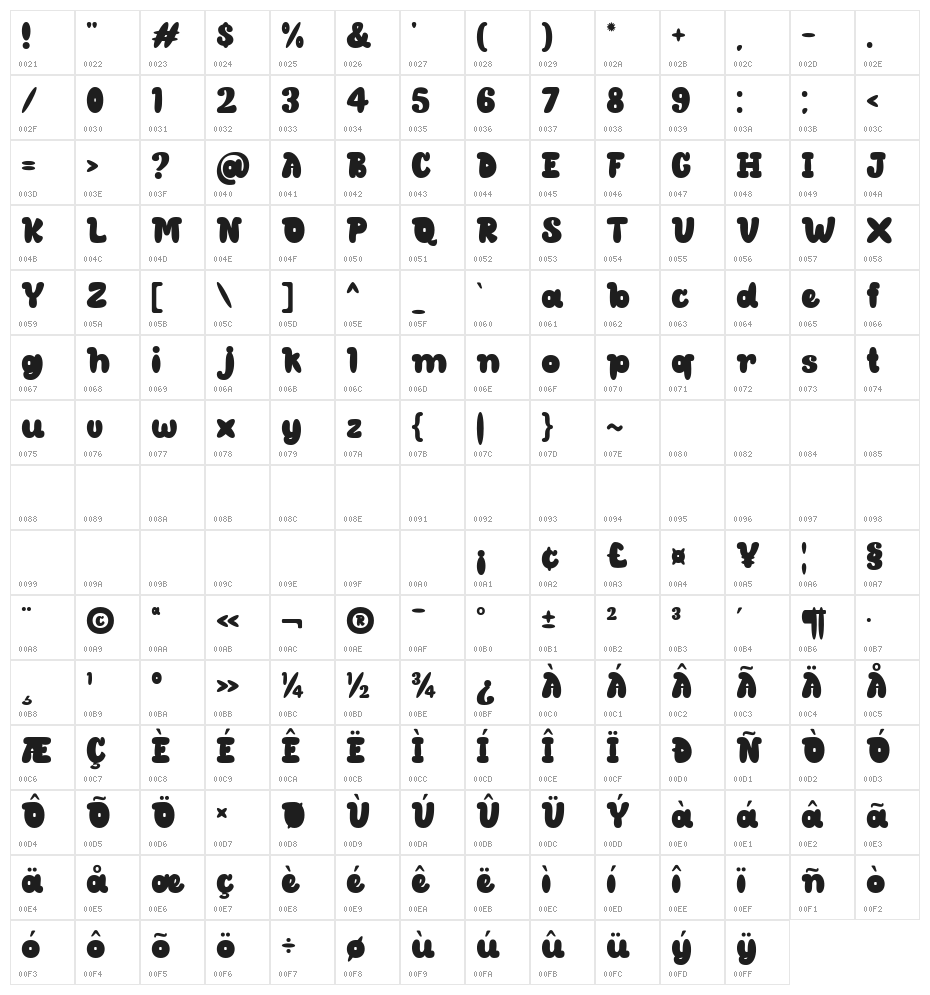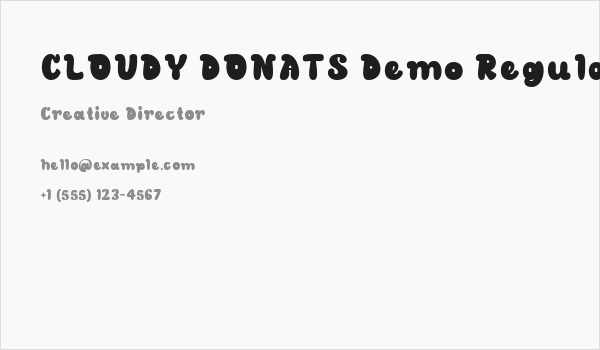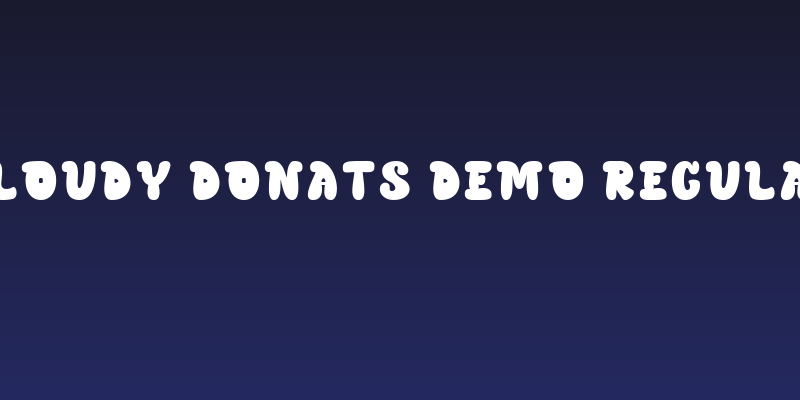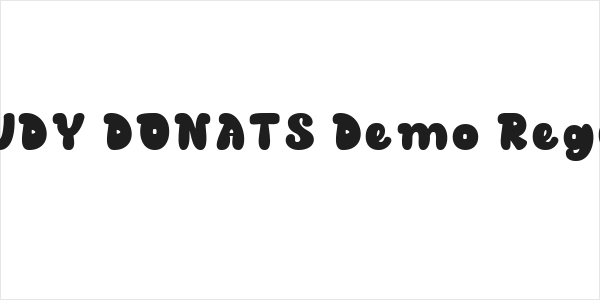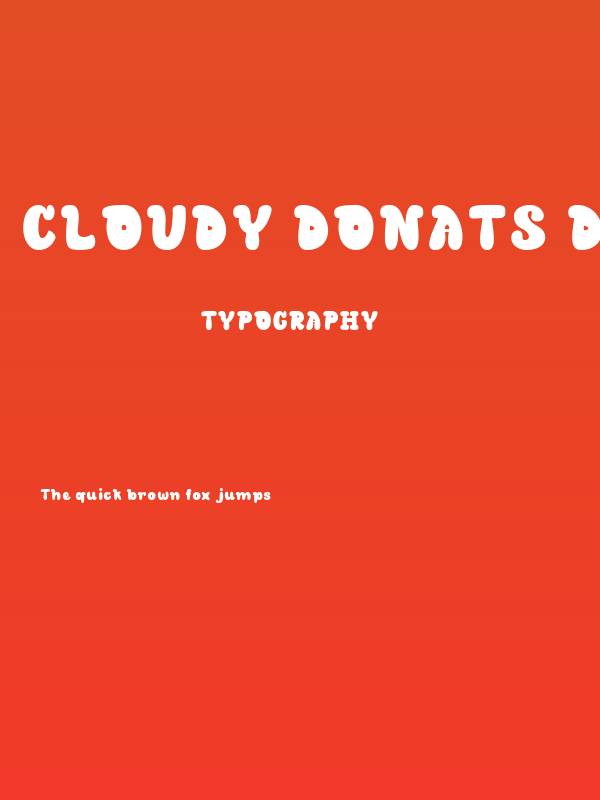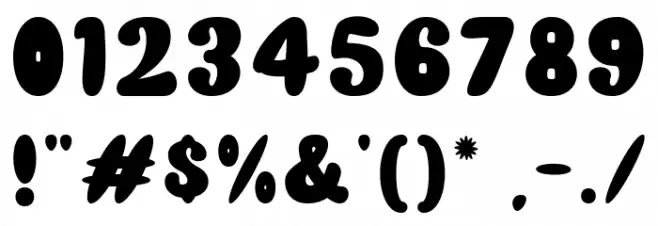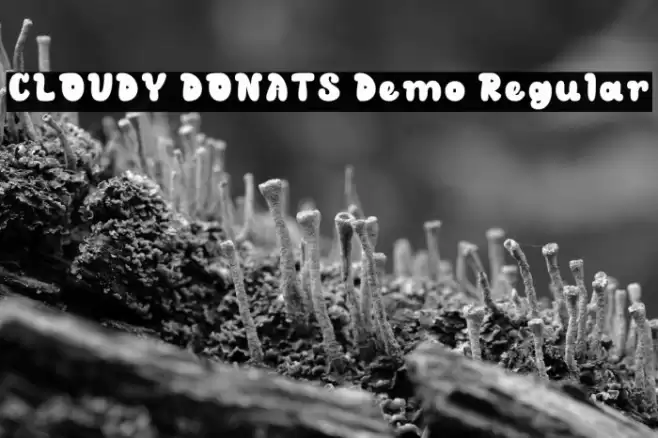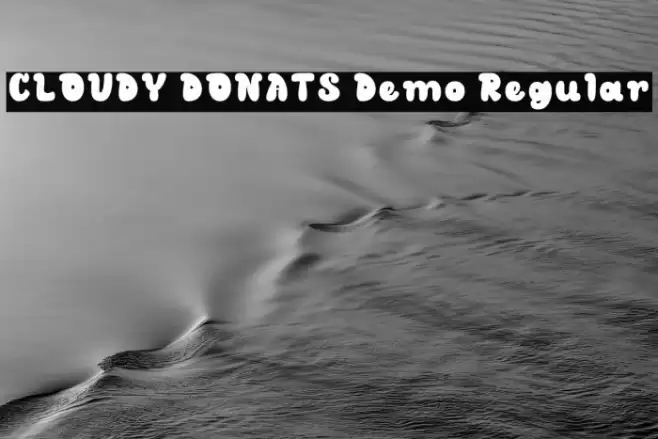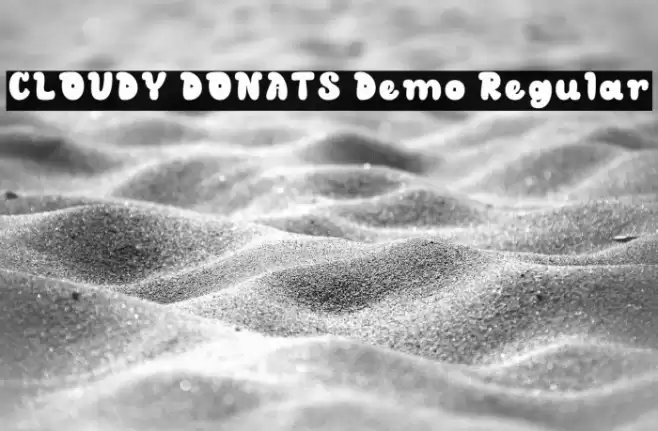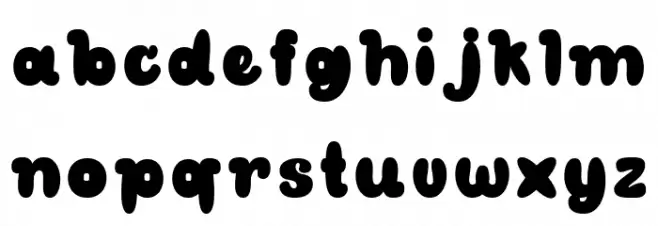
CLOUDY DONATS Demo Regular Font
CLOUDY DONATS Demo Regular Description
This playful and bold font features rounded, bubbly characters that exude a sense of fun and whimsy. The letters are thick and have a soft, cloud-like appearance, making them highly distinctive and eye-catching. The uppercase and lowercase letters maintain a consistent style, with rounded edges and a uniform thickness throughout. Numbers and special characters are designed to match the playful aesthetic, ensuring a cohesive look across all text elements. This font is perfect for projects that require a lighthearted and approachable feel, such as children's books, playful branding, or event posters.
| Proposed Projects | Children's books, playful branding, event posters, party invitations, and toy packaging. |